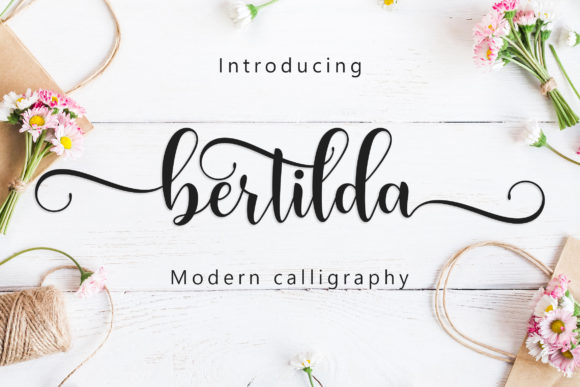
The Bertilda Script Font: A Design Game-Changer
I’ll never forget the design project that led me to discover the stunning Bertilda script font. I was working on a branding project for a boutique bakery, and I needed a font that would convey warmth, elegance, and a touch of whimsy. As I scrolled through my font library, I stumbled upon Bertilda, and it was love at first sight! 💕
The beautiful, flowing lines and unique character of Bertilda instantly captured the essence of the bakery’s brand. It was as if the font was tailor-made for the project. In this article, I’ll share my experience with Bertilda, its features, and how to make the most of it in your design projects.
An Honest Review of Bertilda Script Font
• 💫 Unique and elegant script style that stands out in any design
• 🎨 Versatile and pairs well with a variety of font combinations
• 💬 OpenType features, including glyphs and stylistic alternates, for added creativity
• ⚠️ Some characters may require manual kerning for optimal spacing
• 🤔 Limited availability of condensed or italic versions
The Story Behind Bertilda
Bertilda was designed with the intention of creating a unique, elegant script font that would add a touch of sophistication to any design project. Inspired by traditional calligraphy and modern typography, Bertilda’s creator aimed to craft a font that would be both beautiful and functional.
Font Name Bertilda Script Font
Author Amarlettering
What makes Bertilda stand out from other script fonts? Bertilda’s unique character and elegant lines make it a standout in any design.
Is Bertilda suitable for body text? While Bertilda is beautiful, it’s best suited for headings and titles due to its script nature.